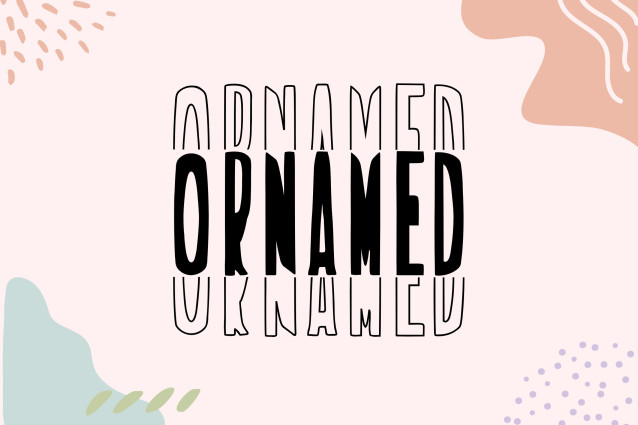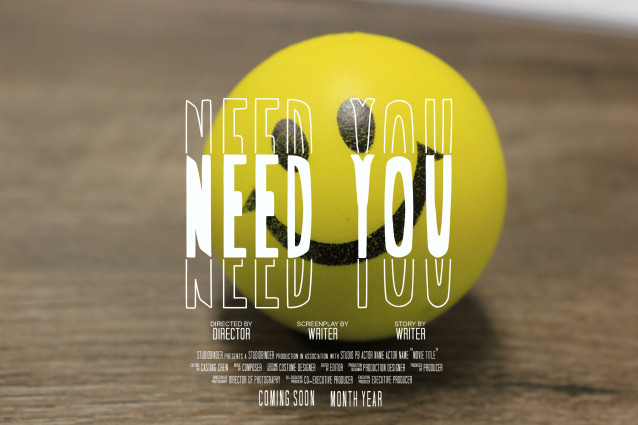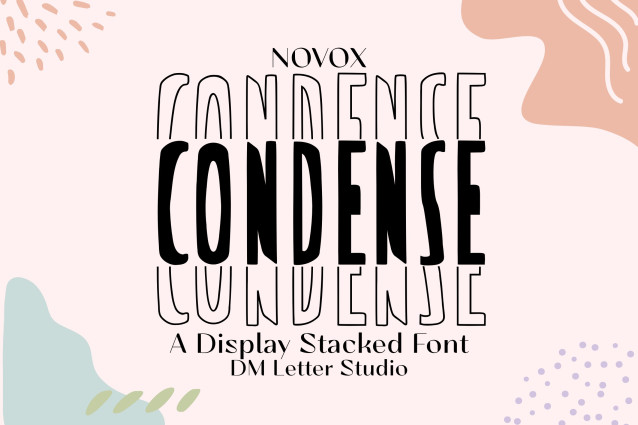
Novox Condense Stacked is a tall, narrow, and impactful display font designed in a stacked format for maximum vertical presence. With its clean lines and condensed form, this typeface is perfect for space-conscious layouts while maintaining strong visual hierarchy. Ideal for editorial headlines, fashion branding, sports designs, posters, and modern logos, Novox Condense Stacked delivers sophistication with edge.